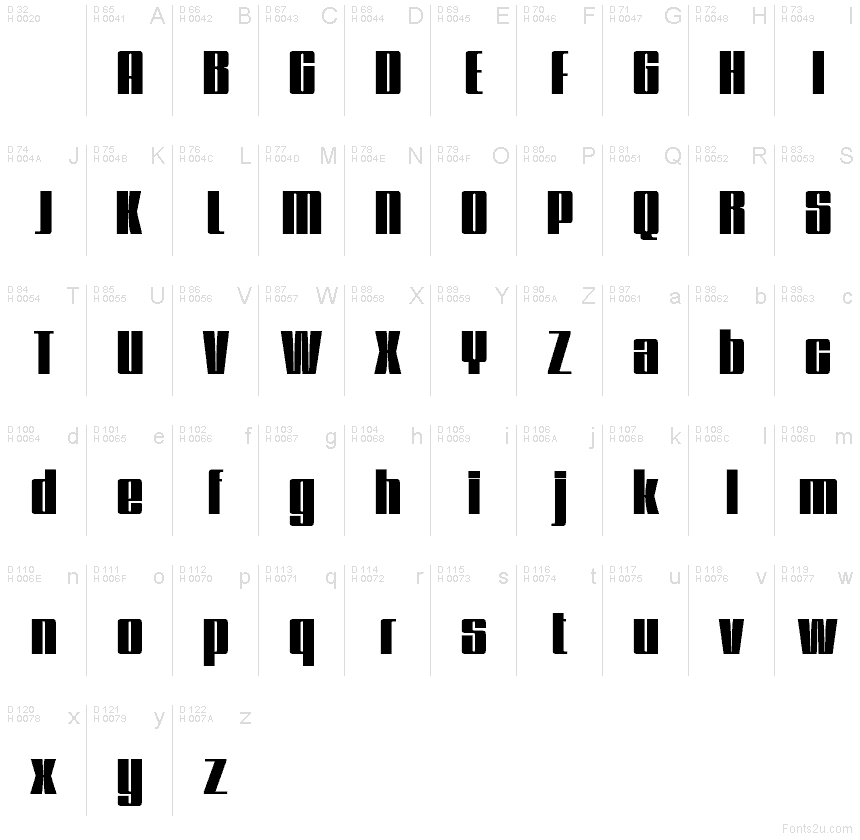
CS Rustle Regular Demo
CS Rustle font by Craft Supply Co. is a free bold condensed display font that solves the classic “big voice, small space” problem. Its ultra-tight width stacks letters like sturdy columns, while slim vertical cuts and smart inner notches keep counters open and strokes readable. The result feels dense and punchy—blocky curves, softened corners, and crisp, flat terminals that hit hard without turning into a black slab.
Using CS Rustle, headlines land with authority on posters, album covers, event flyers, packaging, social promos, and sports branding. The compact rhythm lets you shout in narrow layouts, and a touch of tracking helps at smaller sizes. This free font pairs naturally with a clean grotesk for body copy, letting the heavy display energy lead while the text stays clear and calm.